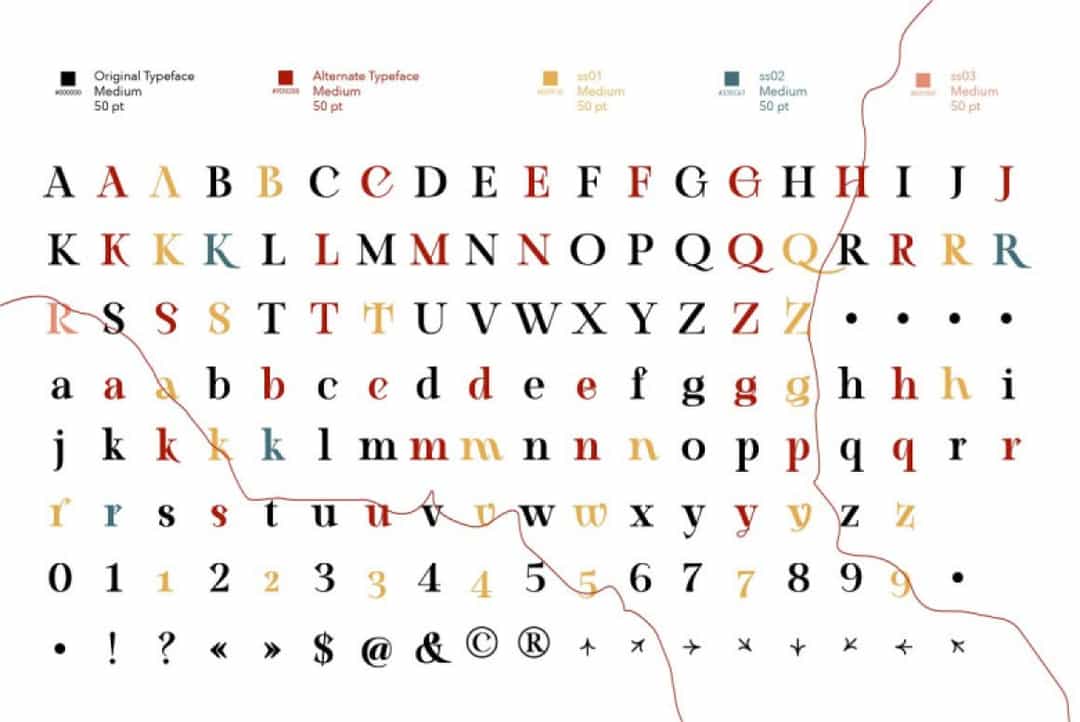
Raylig Font is a beautiful serif that exudes vitality. Khaiuns created it in May 2021 – all by himself – taking around four months. Raylig represents Khaiuns’ attempt at crafting the ideal font to promote branding in various applications; specifically the user experience industry as well as layout typographic designs for posters, magazines, books, or any publication where typographic design layouts may be desired.